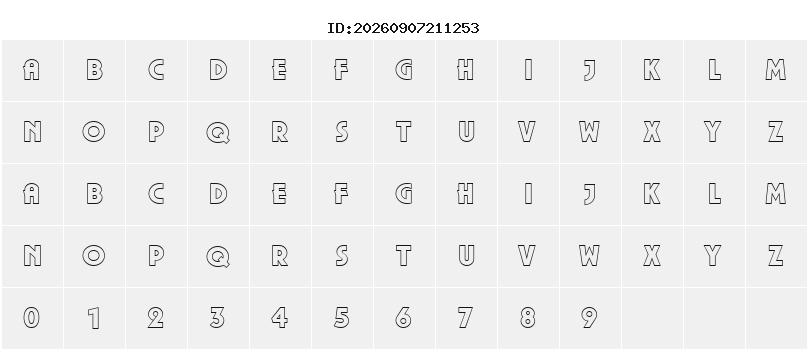
• Font Name: URWPlenaOutPUlt
• Full Font Name: URWPlenaOutPUlt
About URWPlenaOutPUlt.ttf
URWPlenaOutPUlt.ttf is a modern, elegant sans-serif font designed for ultimate readability and visual harmony. Perfect for branding, headlines, web design, and print materials.